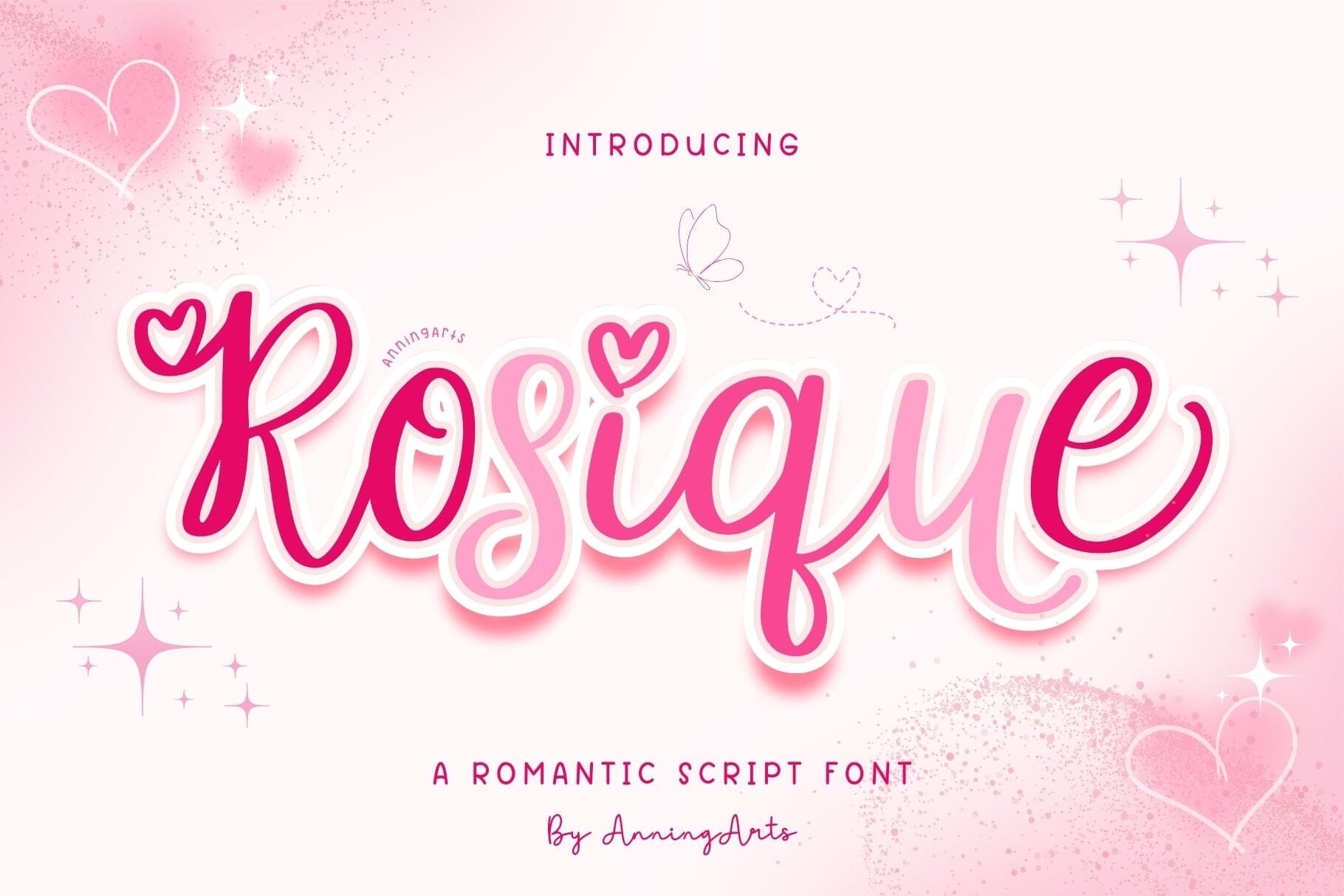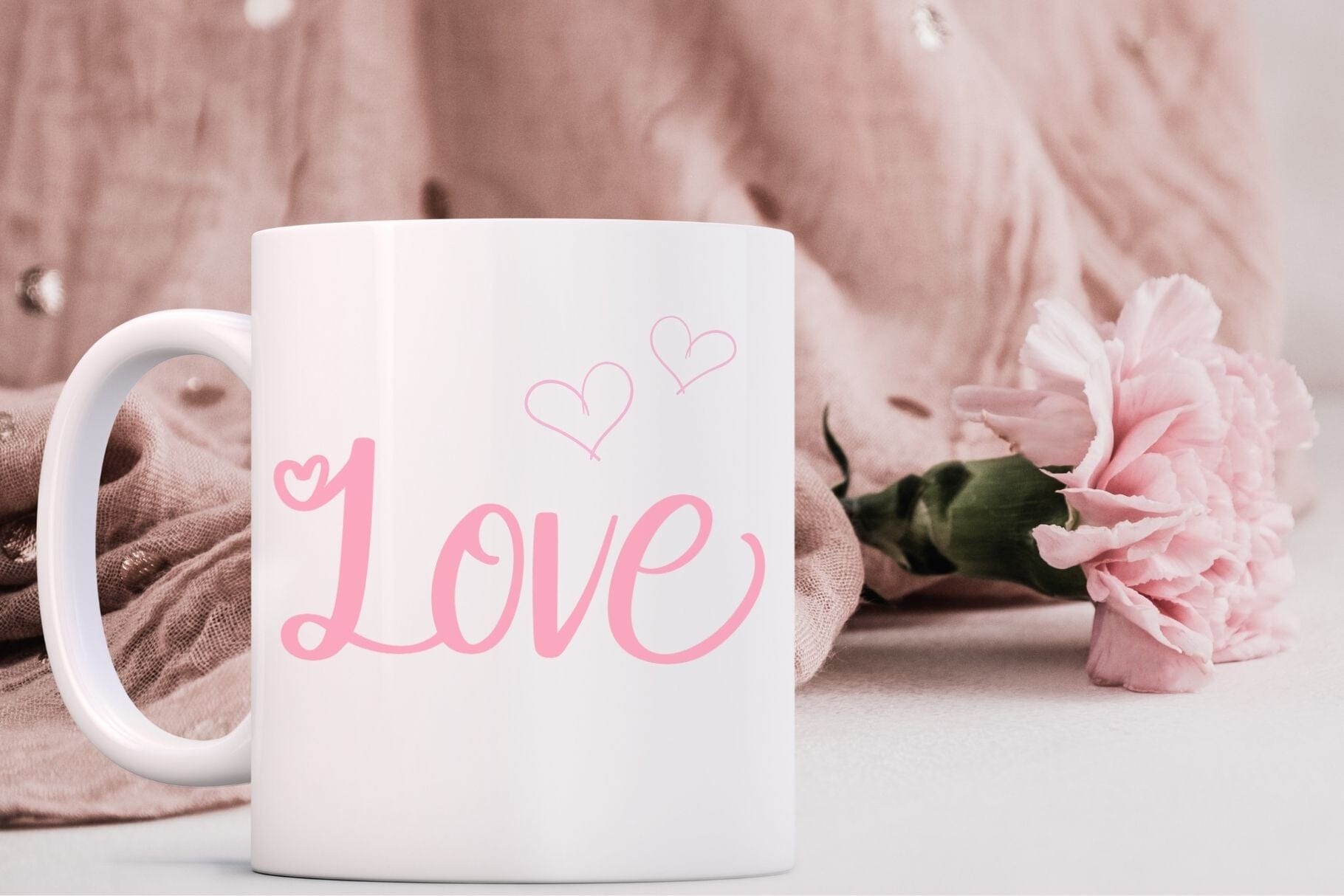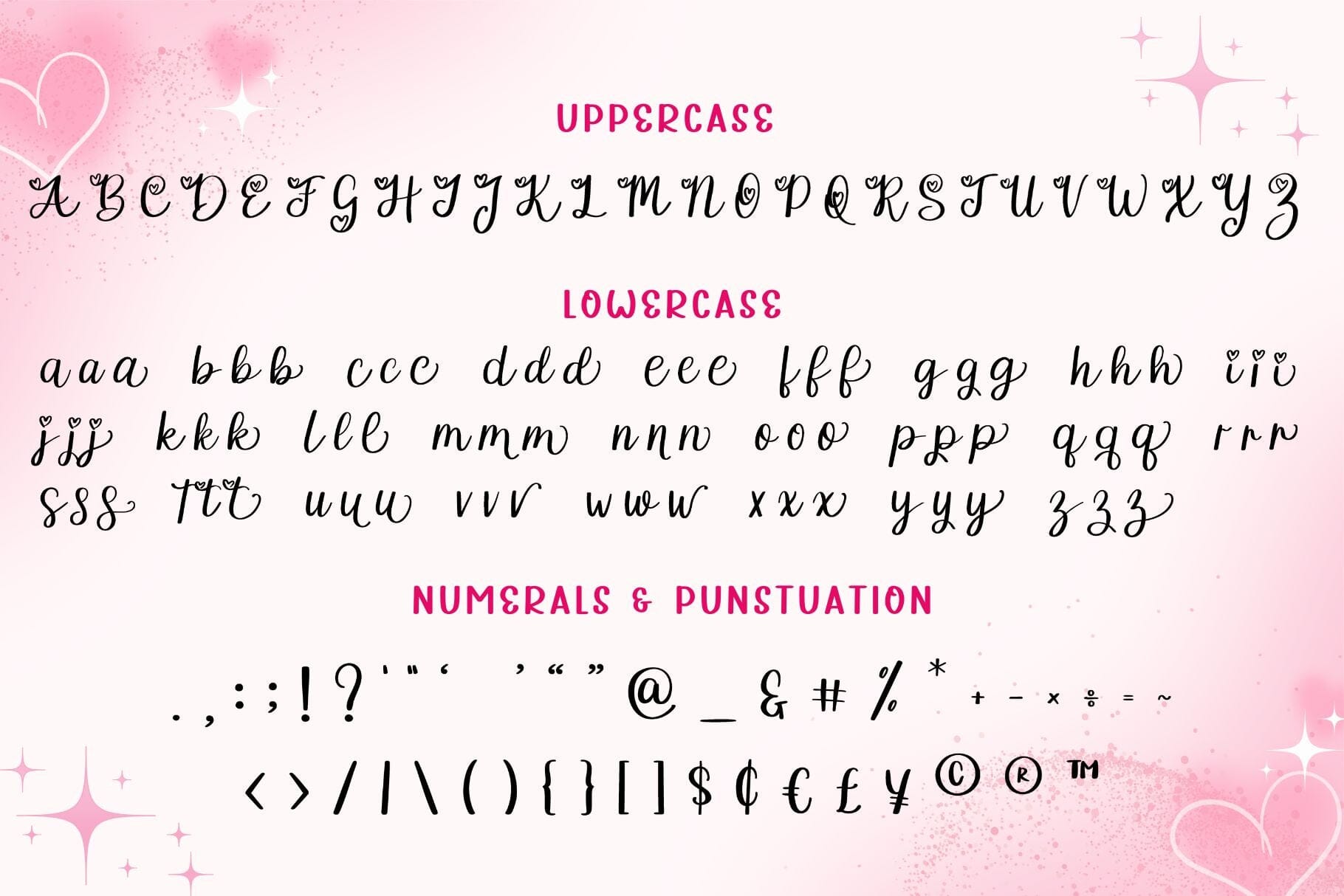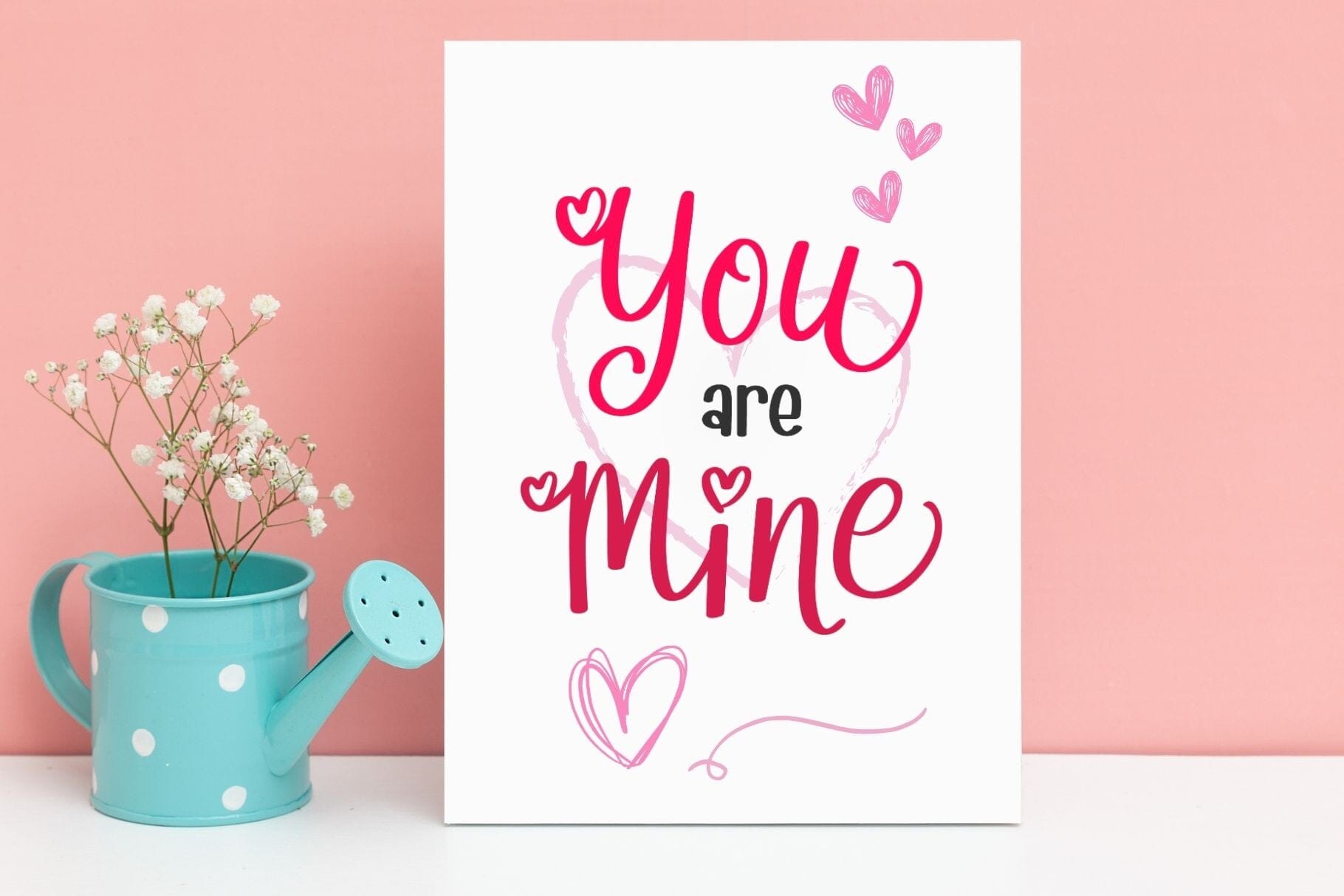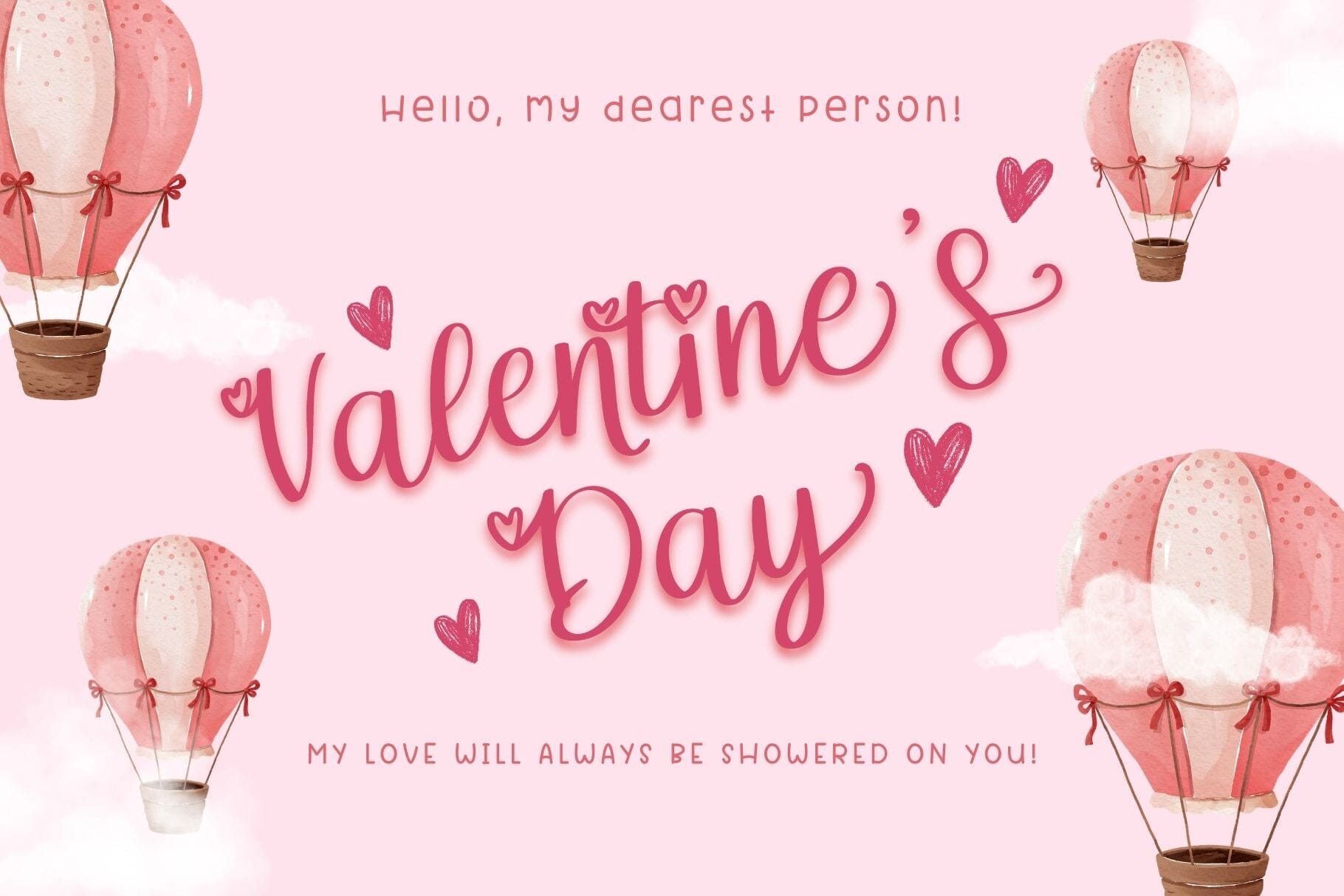
Rosique – Romantic Script Font with Heart Details
Discover the romantic script font Rosique with its distinctive heart details that add a touch of love to every design. This elegant handwritten typeface is perfect for creating emotional connections through beautiful typography in your creative projects.
A Romantic Script Font for Love-Inspired Designs
The Rosique script font combines graceful curves and sophisticated character connections to create an authentic handwritten appearance. Each letter flows naturally into the next, resulting in text that appears genuinely penned by hand rather than digitally produced, making this romantic font ideal for personal and heartfelt communications.
The distinctive heart details in this script font add a unique flair, subtly incorporating the universal symbol of love into your typography without overwhelming your design. These charming elements make Rosique instantly recognizable while maintaining elegant readability.
Perfect Applications for Rosique Romantic Font
Valentine’s Day Designs with this Heart-Detailed Script
Create stunning Valentine’s Day cards and promotional materials with the Rosique romantic script. The font’s heartfelt style perfectly complements love-centered celebrations, helping your message resonate with genuine emotion. This heart-detailed font adds an authentic touch of romance to any Valentine’s design.
Wedding Stationery Using Rosique Script Font
Elevate your wedding invitations, save-the-dates, and thank you notes with the elegant flow of this romantic script font. Rosique’s charming character sets the perfect tone for nuptial celebrations, creating a sophisticated visual identity across all wedding stationery. The heart details subtly enhance the romantic theme of wedding communications.
Love Letters Enhanced by Heart-Detailed Typography
Transform expressions of love with the beautiful strokes of this romantic script font. Whether in print or digital format, Rosique lends authenticity to love letters and anniversary messages. The handwritten quality of this heart-detailed script creates an intimate connection between writer and recipient.
Feminine Branding with Rosique Heart Font
Establish a sophisticated brand identity with Rosique script font as your signature typeface. This romantic font with heart details is well-suited for businesses in the wedding industry, cosmetics, jewelry, and fashion boutiques. Product packaging featuring this elegant script font conveys premium quality with a personal touch.
Technical Features of this Romantic Script Font
The Rosique romantic script comes with comprehensive character support, including alternates that allow you to customize your text for the perfect flow. This heart-detailed font provides everything you need for professional typography.
- Stylistic Alternates – Multiple versions of characters for creative flexibility